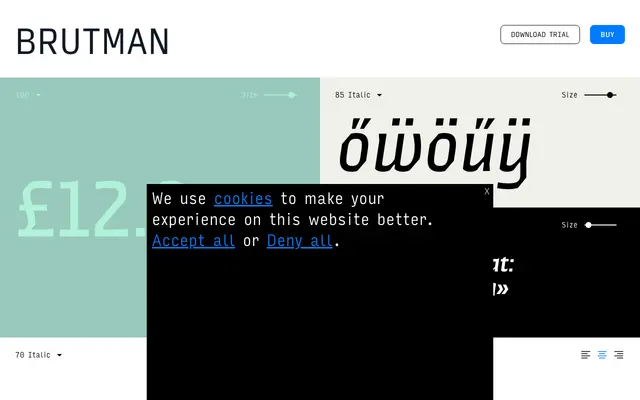
Brutman
A modernist grotesque with six weights and matching italics, built around International Style reference points and architectural graphic vernacular.
Brutman is a grotesque sans-serif from Bastarda with a weight scale running from 70 to 150, each paired with an italic. The design draws on mid-century modernist typography, with specimen texts referencing Bauhaus-adjacent graphic education and International Style architecture. Latin Extended character support covers a broad range of Western and Central European languages.
Brutman presents as a modernist grotesque sans-serif with reference points in International Style typography. The weight naming system (70 through 150) and sample texts referencing modernist architecture and Bauhaus-adjacent graphic design suggest a constructed, rationalist grotesque lineage.